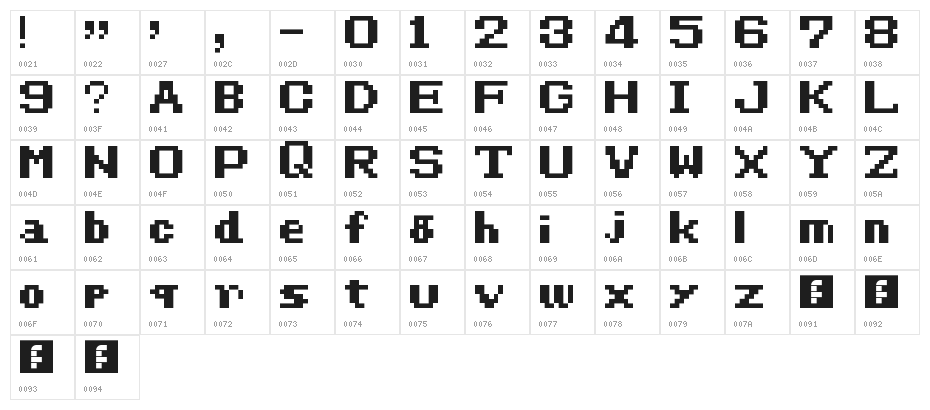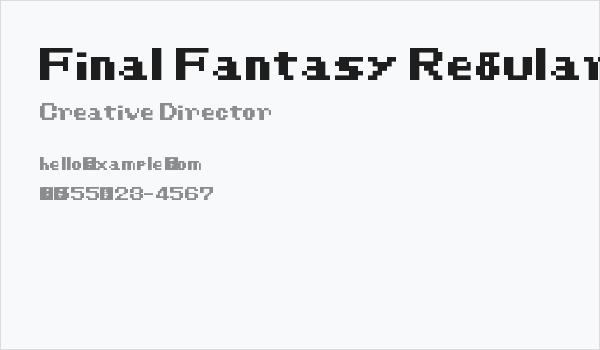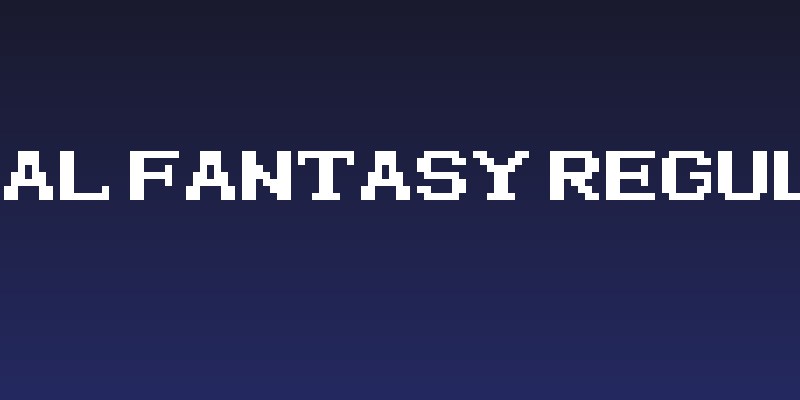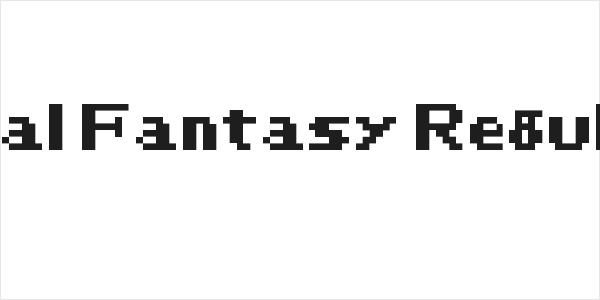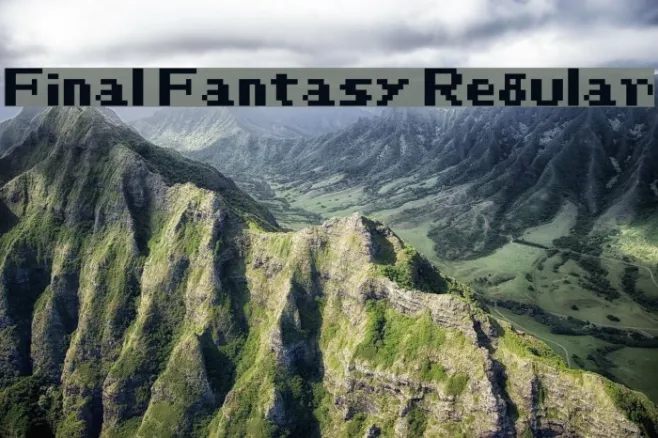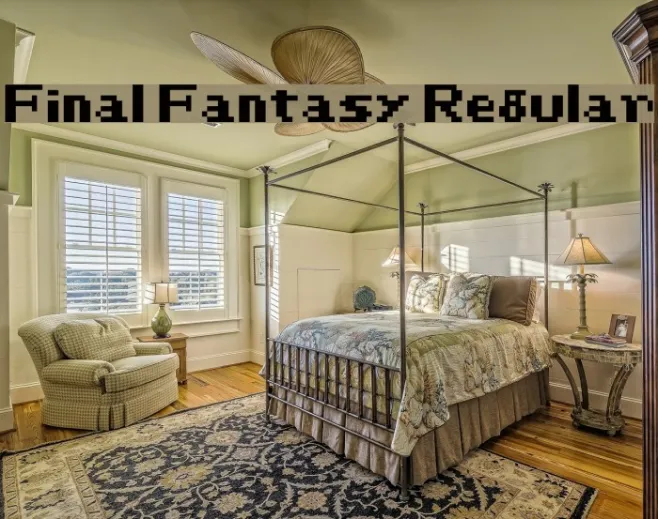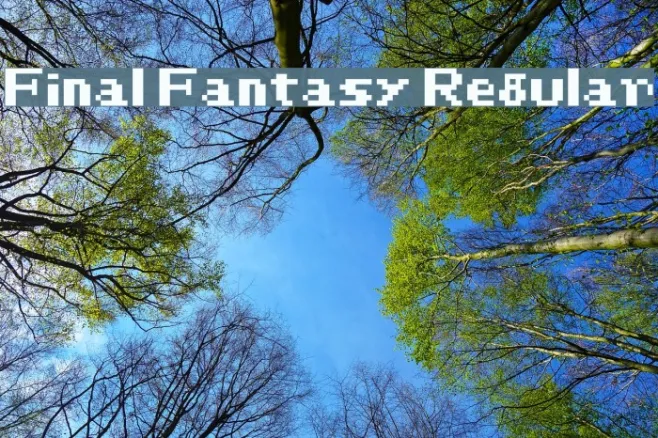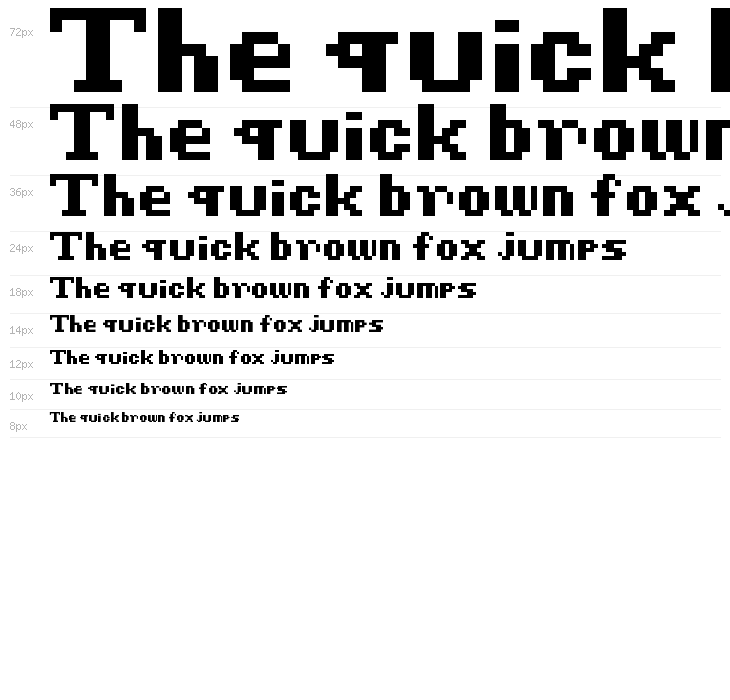
Final Fantasy Regular Font
Final Fantasy Regular Description
This font features a pixelated, blocky style reminiscent of early video game graphics. Each character is composed of square, uniform pixels, giving it a retro, digital aesthetic. The uppercase and lowercase letters maintain a consistent height, with minimal differentiation between them, enhancing the uniformity of the design. Numbers and special characters follow the same pixelated pattern, ensuring a cohesive look across all glyphs. The font's bold, geometric shapes make it highly legible, even at smaller sizes, while its unique style evokes a sense of nostalgia for classic gaming and digital art.
| Use Case | Logos, Headlines, Digital Art |
| Proposed Projects | Ideal for retro video game designs, digital art projects, and any creative work seeking a nostalgic, 8-bit aesthetic. |